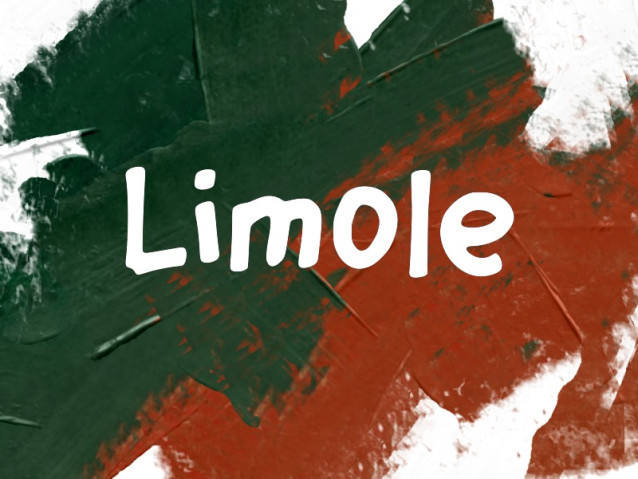
Limole Font
Limole Font This font is perfect for stickers, retro projects, craft projects, shirts, svg designs, procreate designs, branding, blogs, logos, invitations and more!